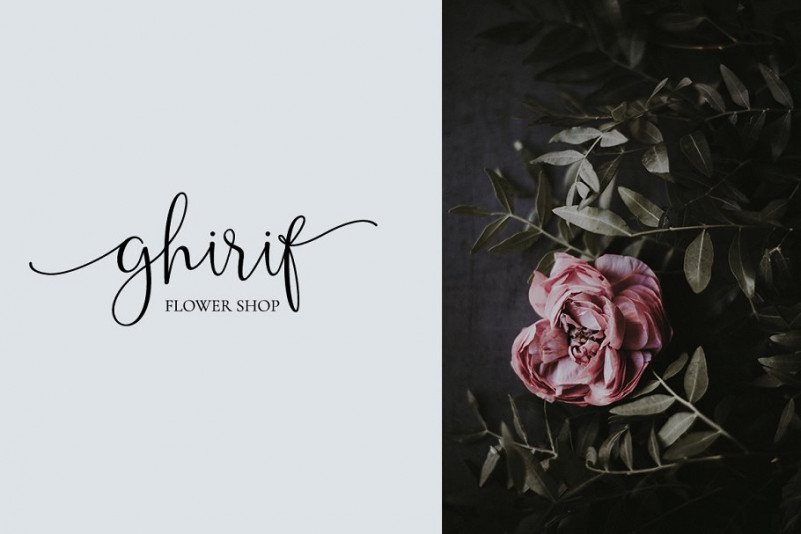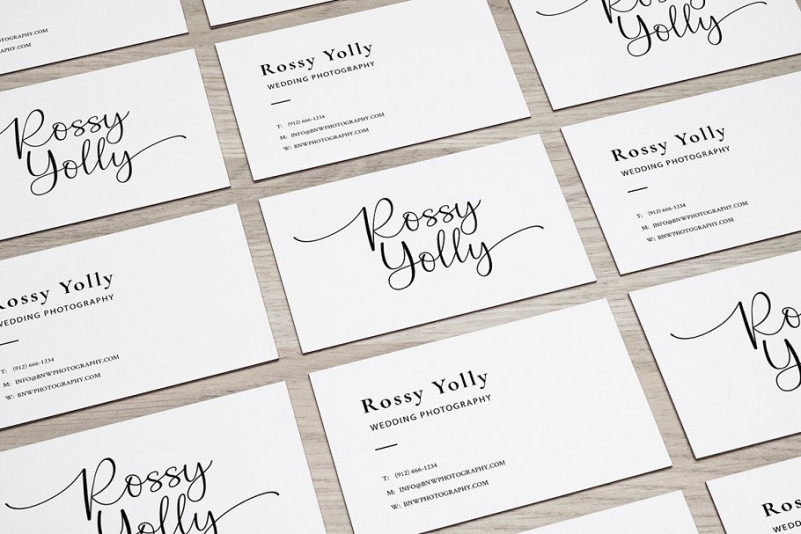
Belly Betty Script Font
Belly Betty Script Demo Font
A new calligraphy script typeface by Ef_Studio. This is a stylish calligraphy font that features a varying baseline, smooth line, modern and with a depth love. Introducing Belly Betty Font. Belly Betty Script Font is a beautiful, modern and new calligraphy font with many alternative styles, swashes make this font look natural, elegant and perfect for any extraordinary project.
Belly Betty is perfect for various projects such as invitations, product packaging, product design, labels, photography, watermarks, logos & branding or whatever.